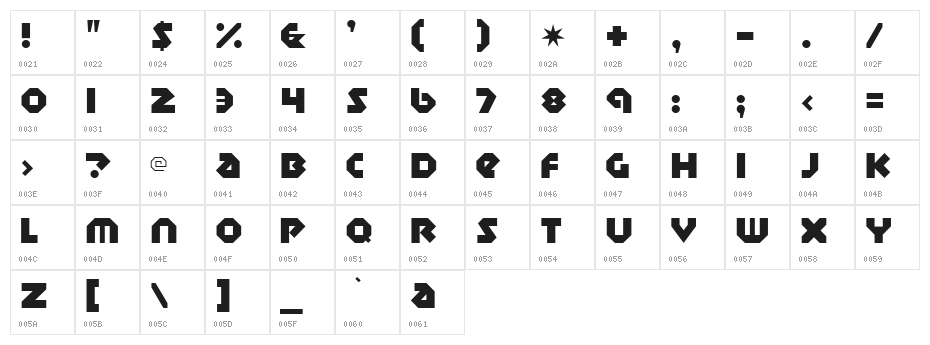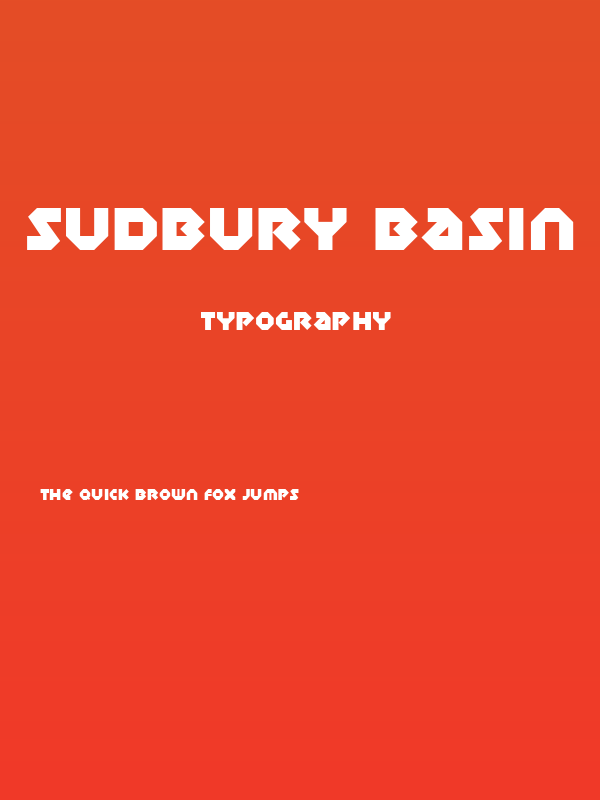
Sudbury Basin Font
Sudbury Basin Description
This font features a bold, geometric design with strong, angular lines and a futuristic aesthetic. Each character is crafted with precision, showcasing a unique blend of sharp edges and symmetrical forms. The uppercase and lowercase letters maintain a consistent style, emphasizing uniformity and balance. Numbers and special characters are designed to match the boldness and angularity of the alphabet, making this font ideal for impactful visual statements. The overall look is modern and dynamic, suitable for projects that require a strong, assertive presence.
| Proposed Projects | Ideal for branding, posters, video game graphics, and sci-fi themed projects. |